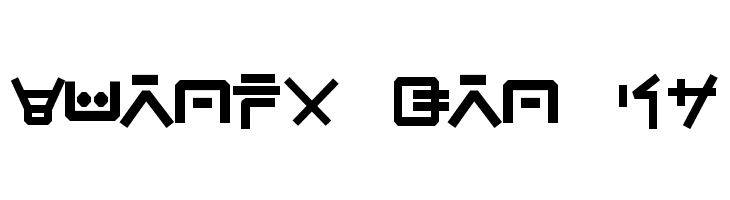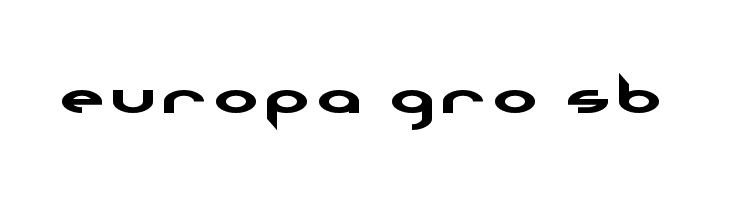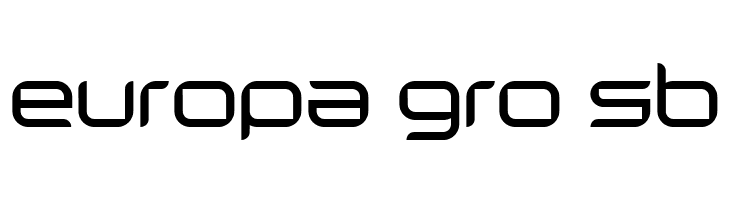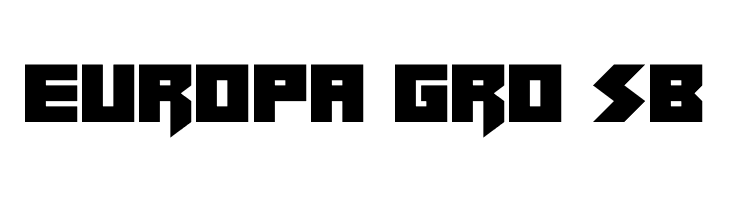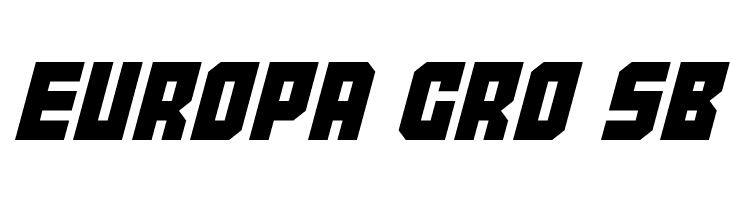
A futuristic, geometric font with sharp angles and a blocky design.
A bold, angular font with a futuristic, alien-like design.
A bold, angular outline font with a futuristic and edgy design.
A bold, futuristic font with geometric and decorative elements.
A bold, angular font with a futuristic, geometric design.
A bold, futuristic font with sharp angles and geometric shapes.
A modern, geometric font with a futuristic and sleek design.
A bold, futuristic font with sharp angles and a dynamic slant.